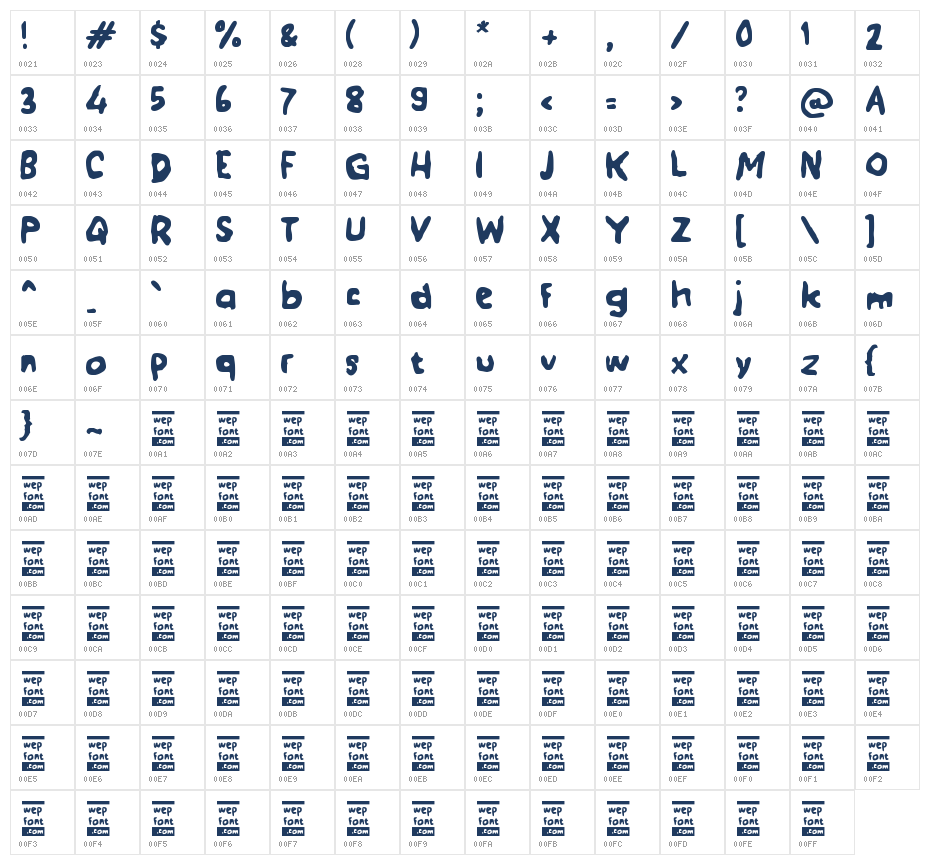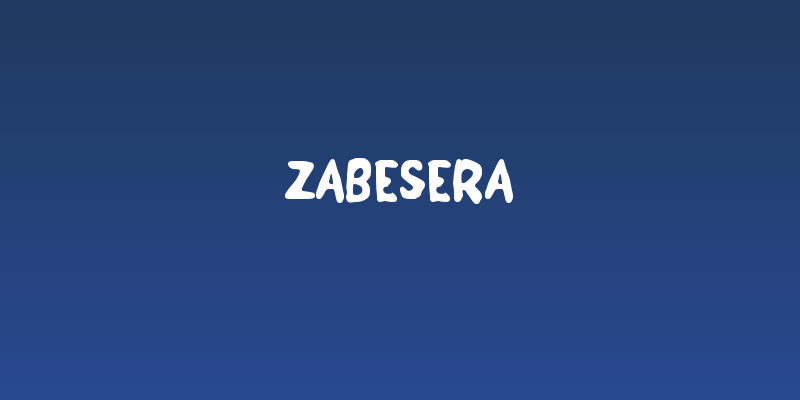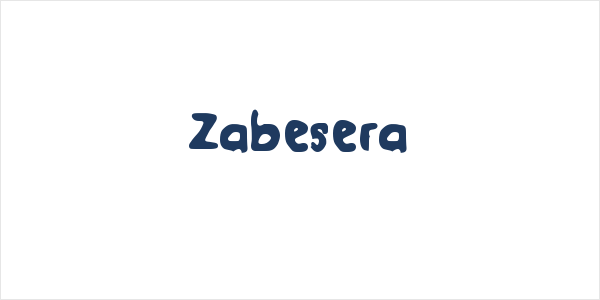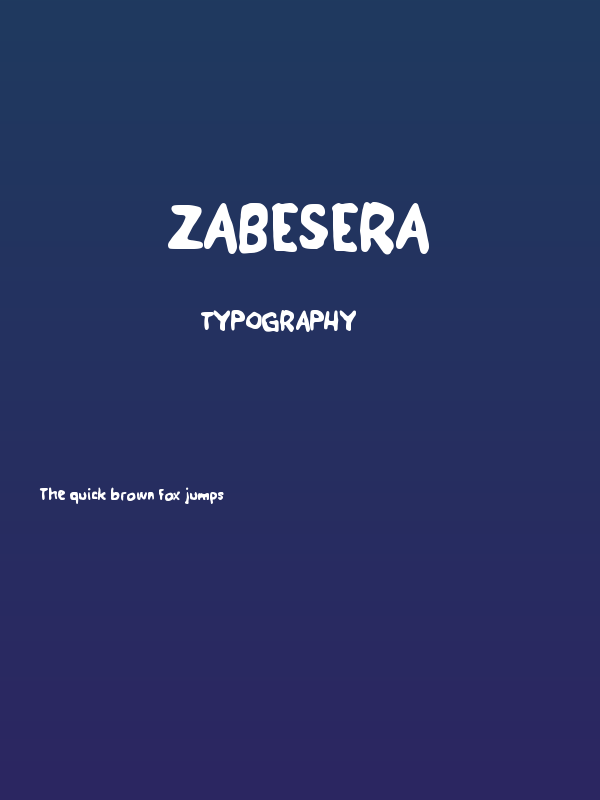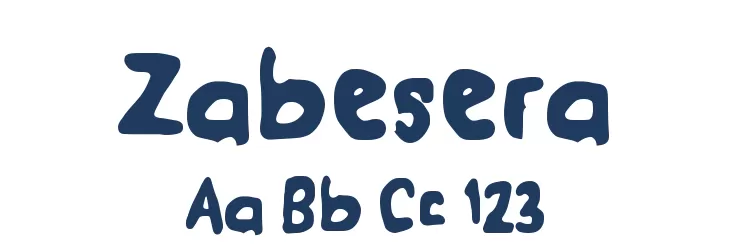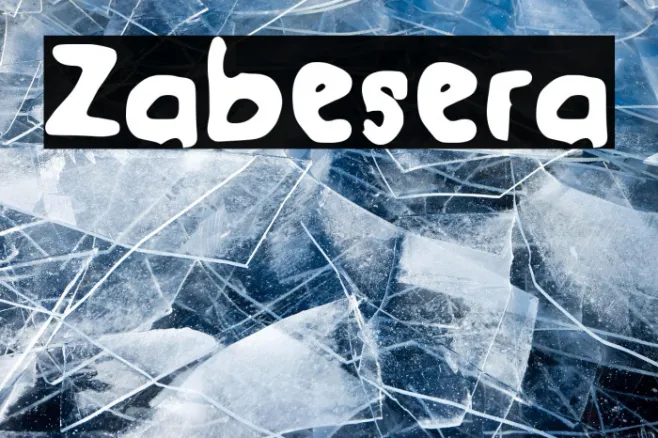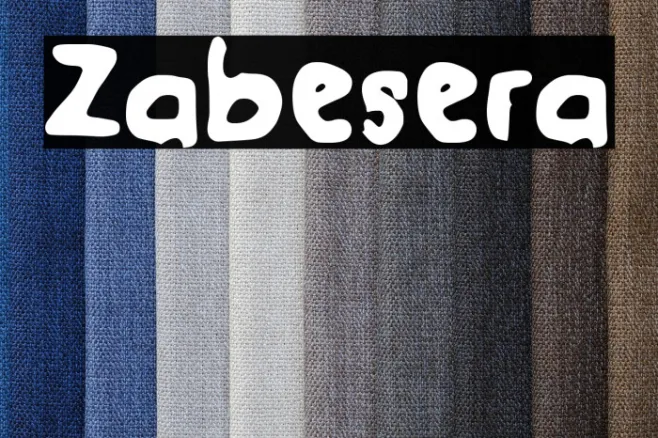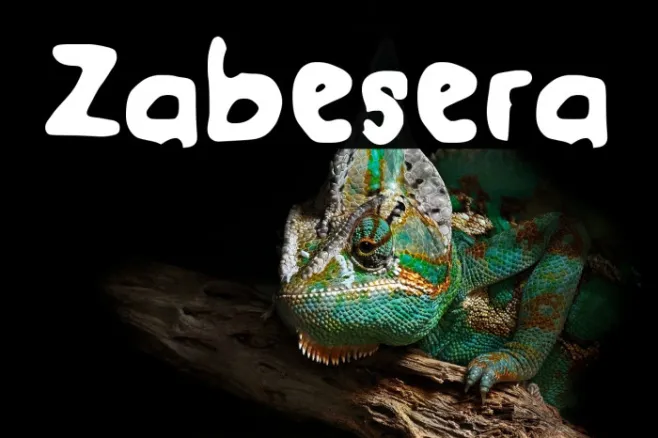
Zabesera Font
Zabesera Description
A playful, bold, handwritten style font with irregular, rounded characters that resemble casual, brush-stroke lettering.
| Overall Style | Casual, Playful, Handcrafted |
| Use Case | Headlines, Posters, Logos, Children's materials |